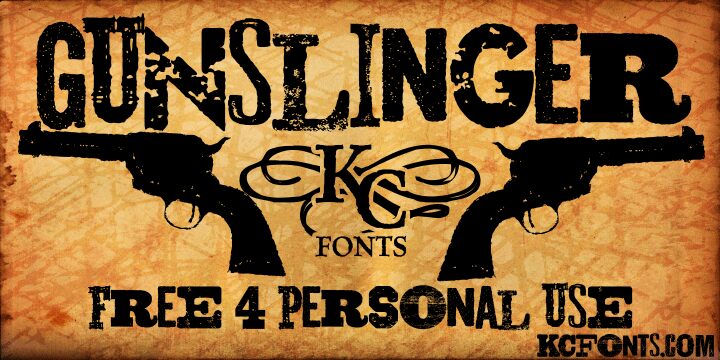
Gunslinger, created by Kevin Christopher, is a free eroded Western display font with broad slab-serif letters and a battered print texture. Its uneven wear gives every word a rough, weathered edge.
The Old West reference makes it a convincing fit for saloon branding, frontier-themed game graphics, and country music merchandise, especially when the design needs the look of aged signage. On book covers and magazine features, its scarred surfaces can turn a heading into part of the period scenery rather than neutral editorial type.